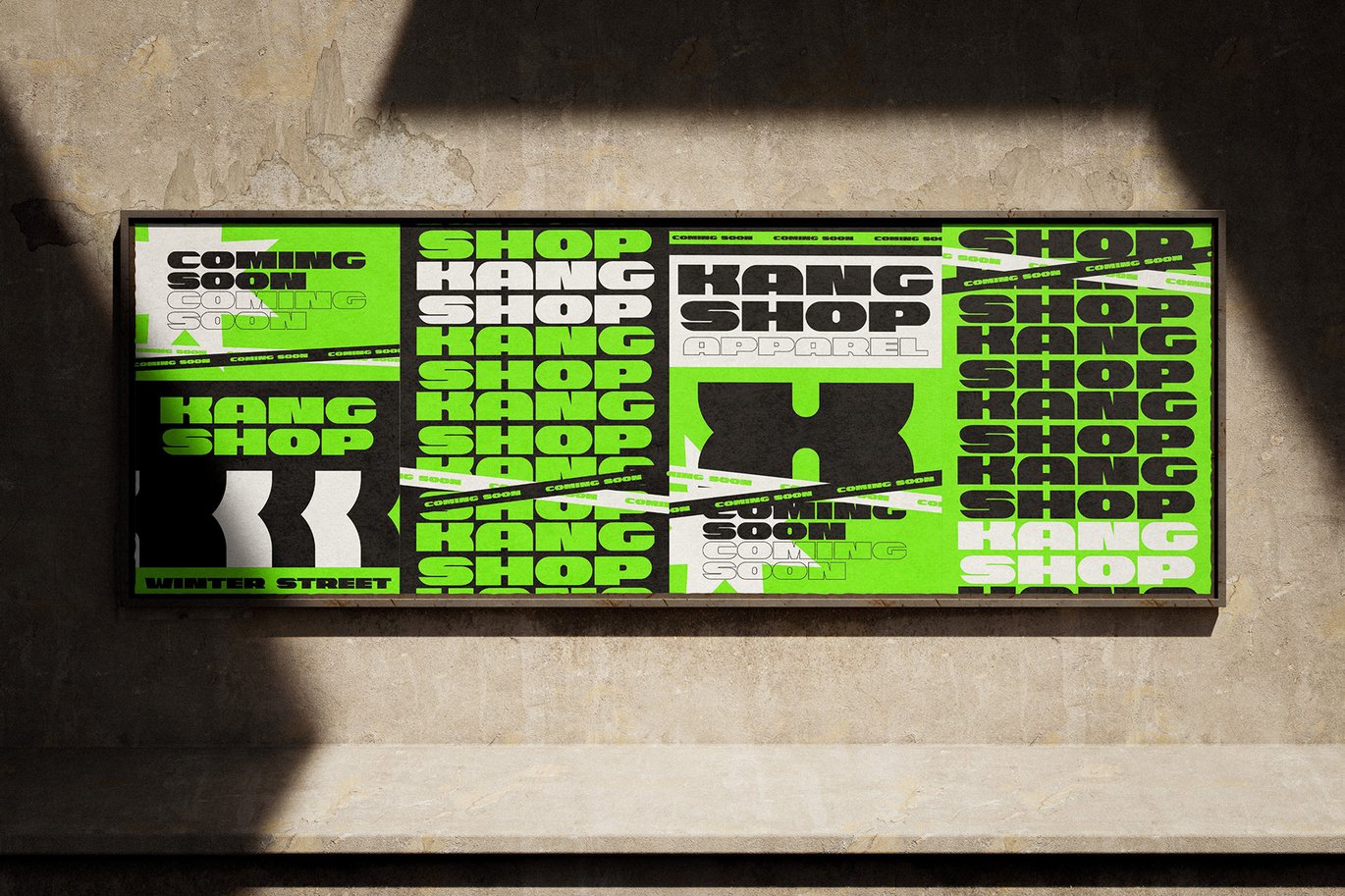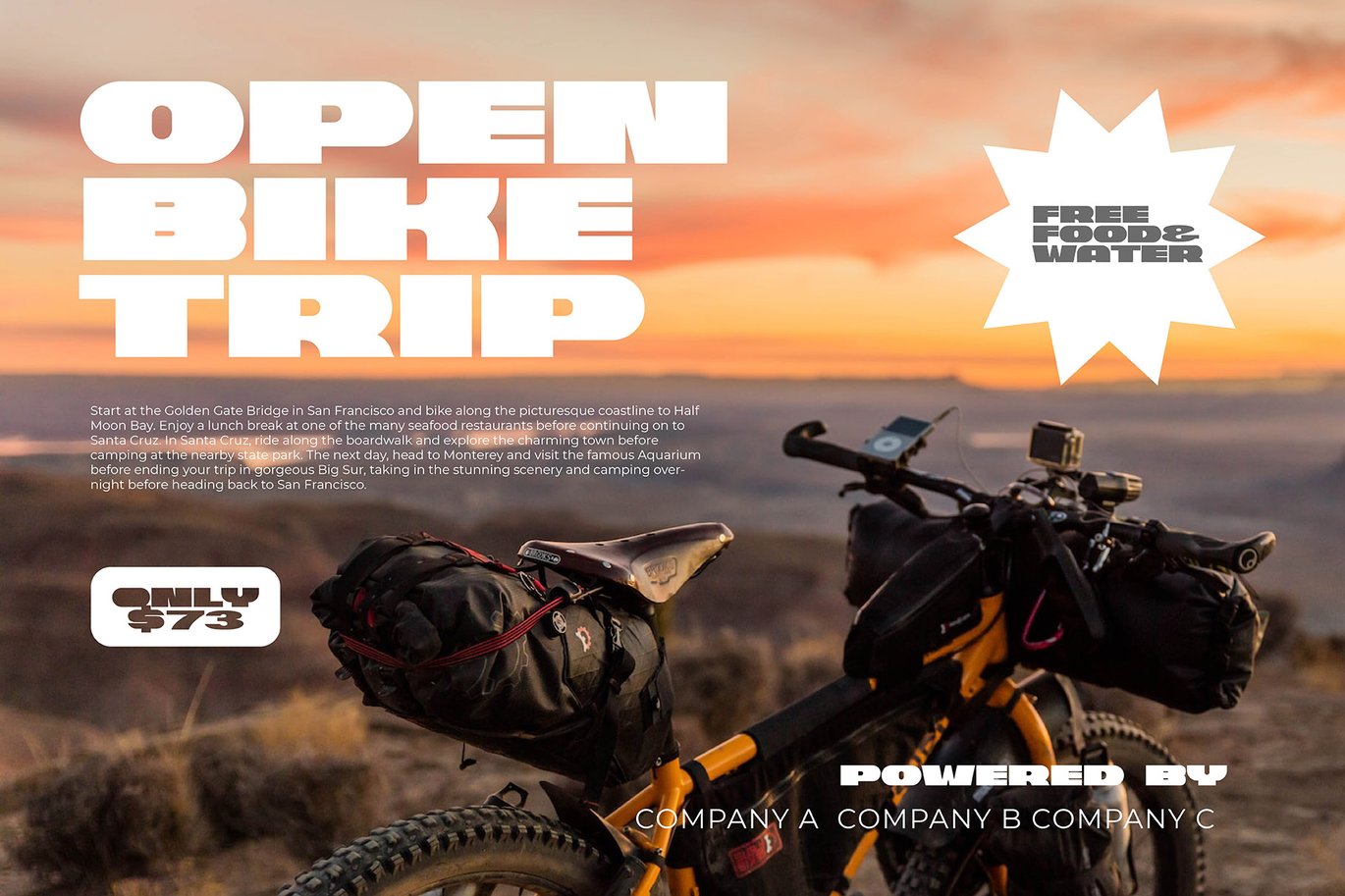
Know Modern Sans Serif Font – Clean & Versatile Font
Know Modern Sans Serif Font – Clean & Versatile Font is a versatile typeface ideal for various projects, including logos, branding, posters, blog headers, advertisements. The free version includes a full set of uppercase and lowercase letters, available in OTF format.